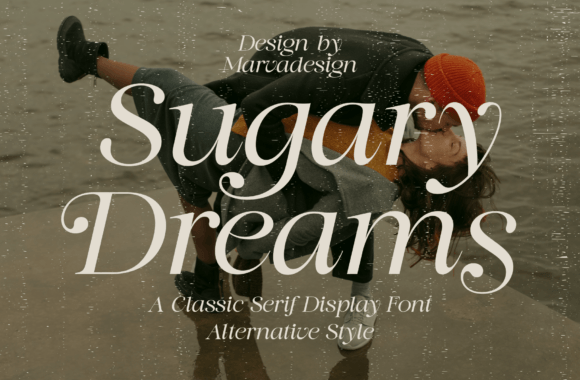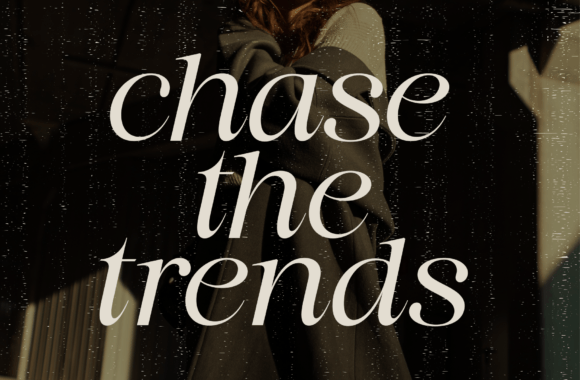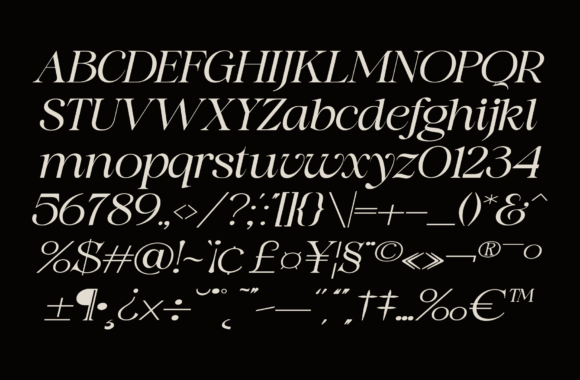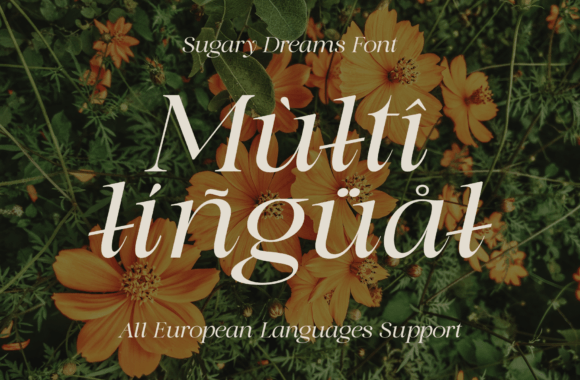
Sugary Dreams Font
Sugary Dreams is a stylish and elegant font with fancy, classic letters. It’s perfect for making eye-catching titles, logos, and posters. The font looks sweet and charming, just like its name suggests.